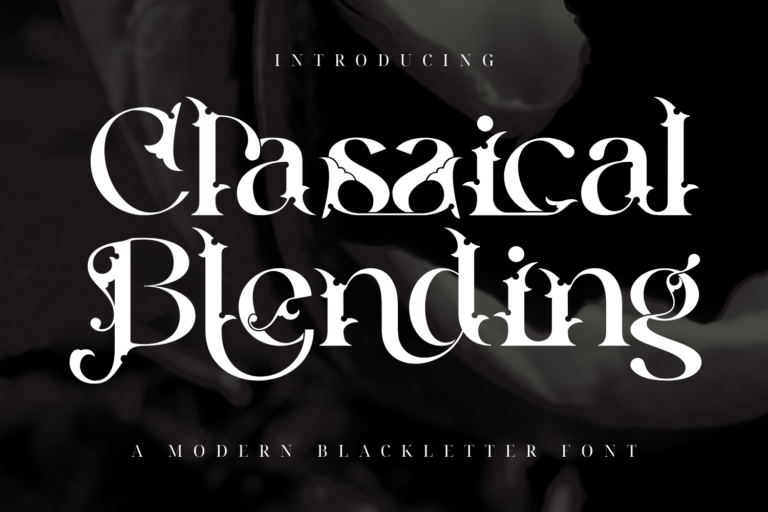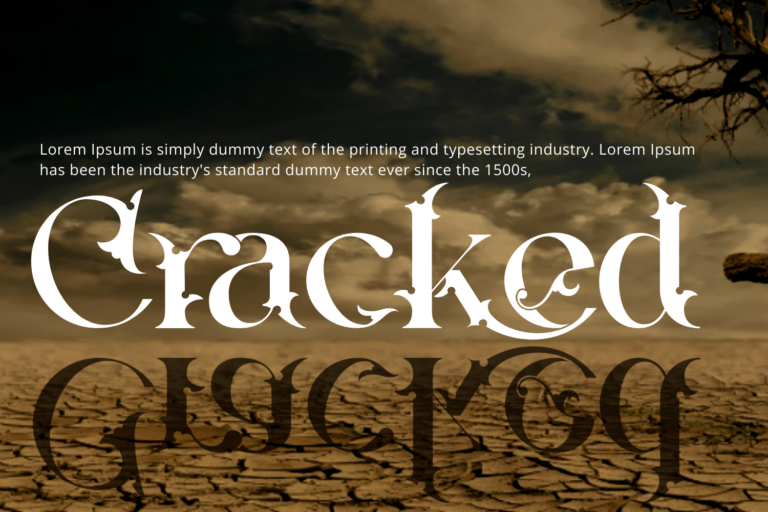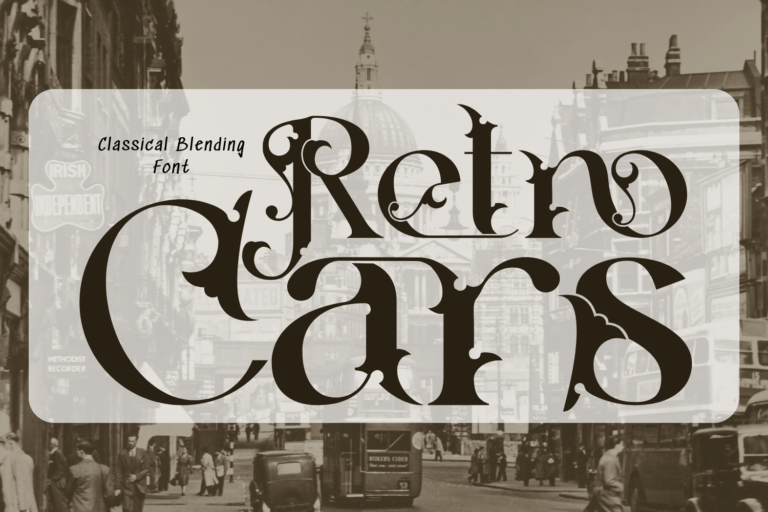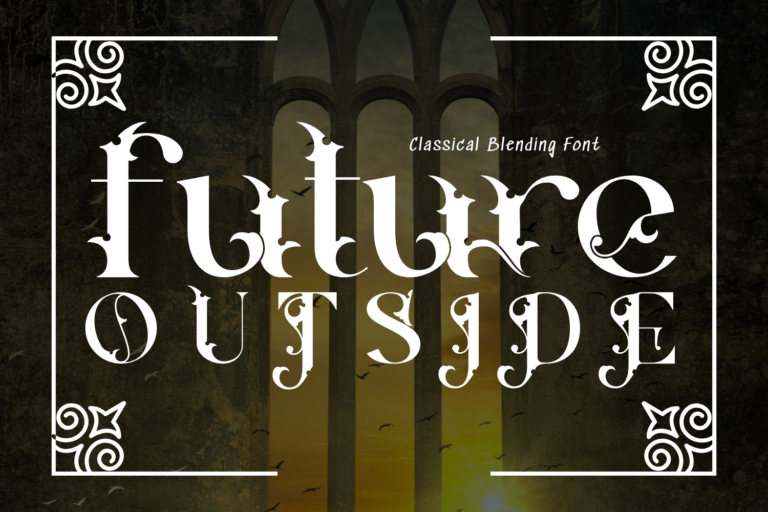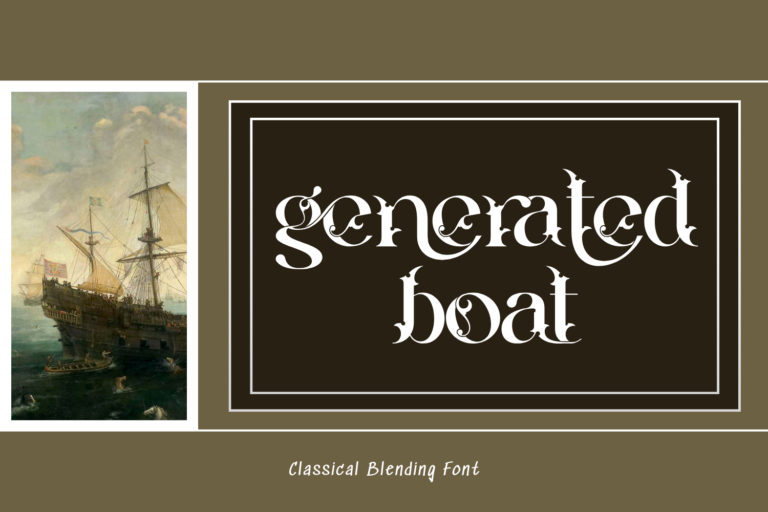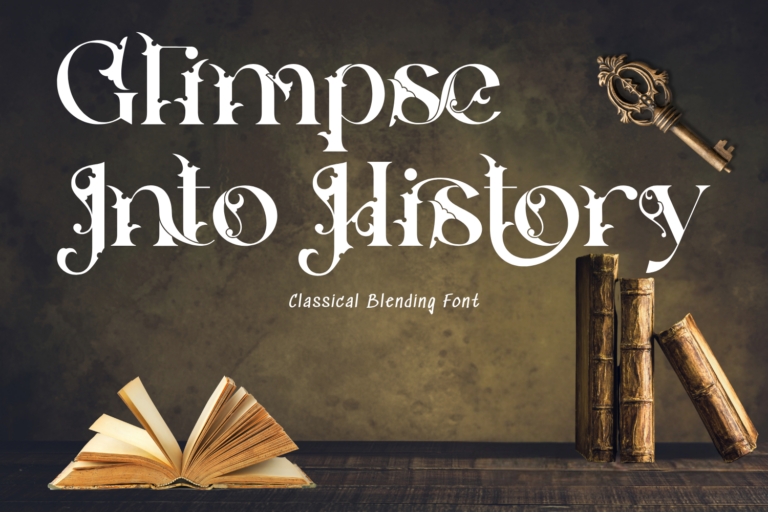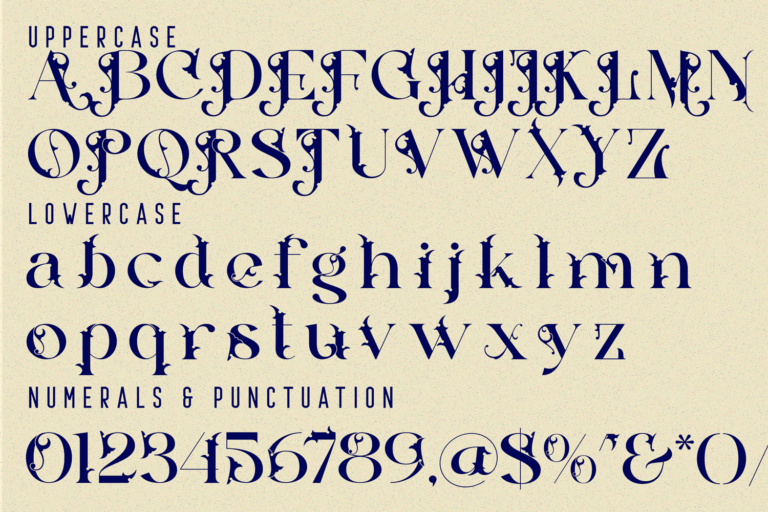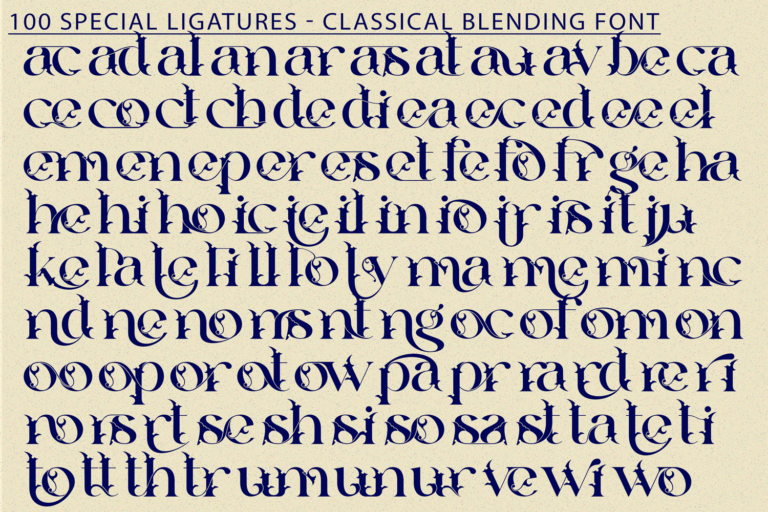
Classical Blending – Gothic Font – A Baroque-Modern Display Serif Font, a bold and artistic serif font that merges the elegance of classical typography with the mystique of baroque fantasy. Its sweeping terminals, sharp spurs, and ornamental ligatures form a visual rhythm that evokes drama, mythology, and avant-garde aesthetics. Each character is meticulously designed to blend gothic sensuality with modern typographic precision — a perfect balance between tradition and rebellion.
Font Features:
• Uppercase & Lowercase Letters
• ~100 Special Ligatures & Stylistic Alternates
• Accented Characters (Multilingual Support)
ac ad al an ar as at au av be ca ce ch co ct de di ea ec ed ee el em en ep er es et fe fo fr ge ha he hi ho ie ic il in io ir is it ju ke la le li ll lo ly ma me mi nc nd ne ng no nt ns oc of om on oo op or ot ou ow pa pr ra rd re ri ro rs rt se sh si so ss st ta te th ti to tr tt um un ur ve wi wo
Classical Blending – Gothic Font